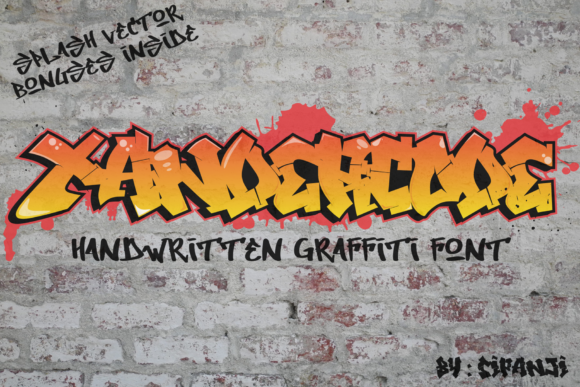
Xandercode Font: The Ultimate Display Font for Creative Minds
Are you tired of using the same old fonts for your creative projects? Do you want to make your designs stand out from the crowd? Look no further than Xandercode Font, a bold and chunky lettered display font that’s sure to take your work to the next level. In this article, we’ll dive into the world of Xandercode Font, exploring its features, benefits, and uses, as well as provide tips on how to incorporate it into your design workflow.
What is Xandercode Font?
Xandercode Font is a display font designed to make a statement. Its bold and chunky lettering style is perfect for creating eye-catching headlines, titles, and captions that demand attention. With its unique and modern aesthetic, Xandercode Font is ideal for designers, artists, and creatives looking to add a touch of personality to their work.
- Bold and Chunky: Xandercode Font features bold and chunky lettering that’s perfect for making a statement.
- Modern Aesthetic: Its unique and modern design makes it perfect for creative projects that require a fresh and contemporary look.
- Highly Versatile: Xandercode Font can be used for a wide range of design applications, from posters and flyers to social media graphics and website headers.
Benefits of Using Xandercode Font
So, why should you choose Xandercode Font for your creative projects? Here are just a few benefits of using this amazing display font:
- Instant Recognition: Xandercode Font’s bold and chunky lettering style makes it instantly recognizable, grabbing the attention of your audience and setting your design apart from the rest.
- Easy to Read: Despite its bold style, Xandercode Font is surprisingly easy to read, making it perfect for use in titles, headings, and captions.
- Customizable: Xandercode Font comes in a range of styles and weights, allowing you to customize it to suit your design needs.
- Time-Saving: With Xandercode Font, you can create professional-looking designs in no time, saving you hours of design time and effort.
Uses of Xandercode Font
Xandercode Font is an incredibly versatile display font that can be used for a wide range of design applications, including:
- Posters and Flyers: Use Xandercode Font to create eye-catching posters and flyers that grab attention and drive results.
- Social Media Graphics: Add a touch of personality to your social media graphics with Xandercode Font, making your posts stand out in crowded feeds.
- Website Headers: Use Xandercode Font to create bold and chunky website headers that set the tone for your brand.
- Logos and Branding: Xandercode Font can even be used to create custom logos and branding materials that reflect your unique style and aesthetic.
Tips and Tricks for Using Xandercode Font
Here are a few tips and tricks to help you get the most out of Xandercode Font:
- Experiment with Colors: Try pairing Xandercode Font with bold and bright colors to create eye-catching designs that pop.
- Mix and Match: Combine Xandercode Font with other fonts and styles to create unique and interesting visual effects.
- Pay Attention to Spacing: Make sure to leave enough space between letters and lines to ensure your design looks clean and professional.
- Use it Sparingly: While Xandercode Font is bold and attention-grabbing, it can be overwhelming if used too much. Use it sparingly to create maximum impact.
In conclusion, Xandercode Font is an amazing display font that’s perfect for creative minds looking to make a statement. With its bold and chunky lettering style, modern aesthetic, and high versatility, Xandercode Font is sure to take your designs to the next level. Whether you’re a designer, artist, or simply a creative enthusiast, Xandercode Font is a must-have font that will help you stand out from the crowd.